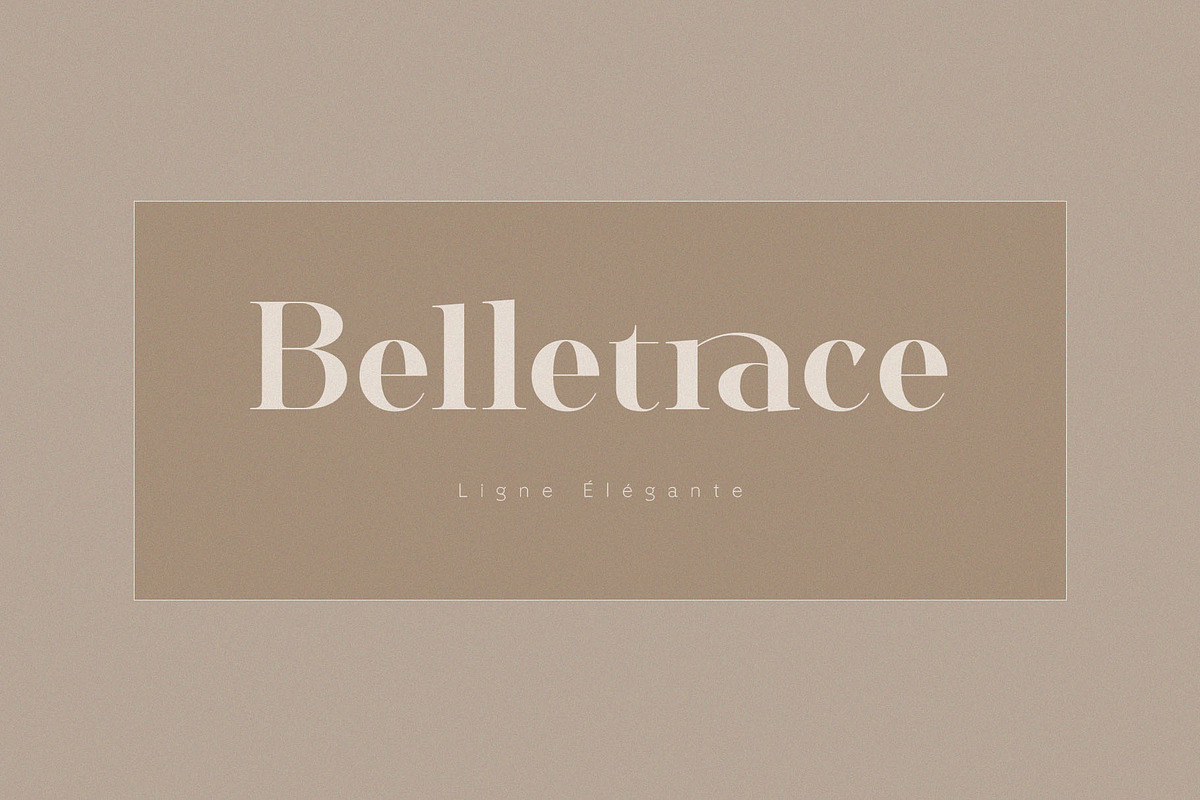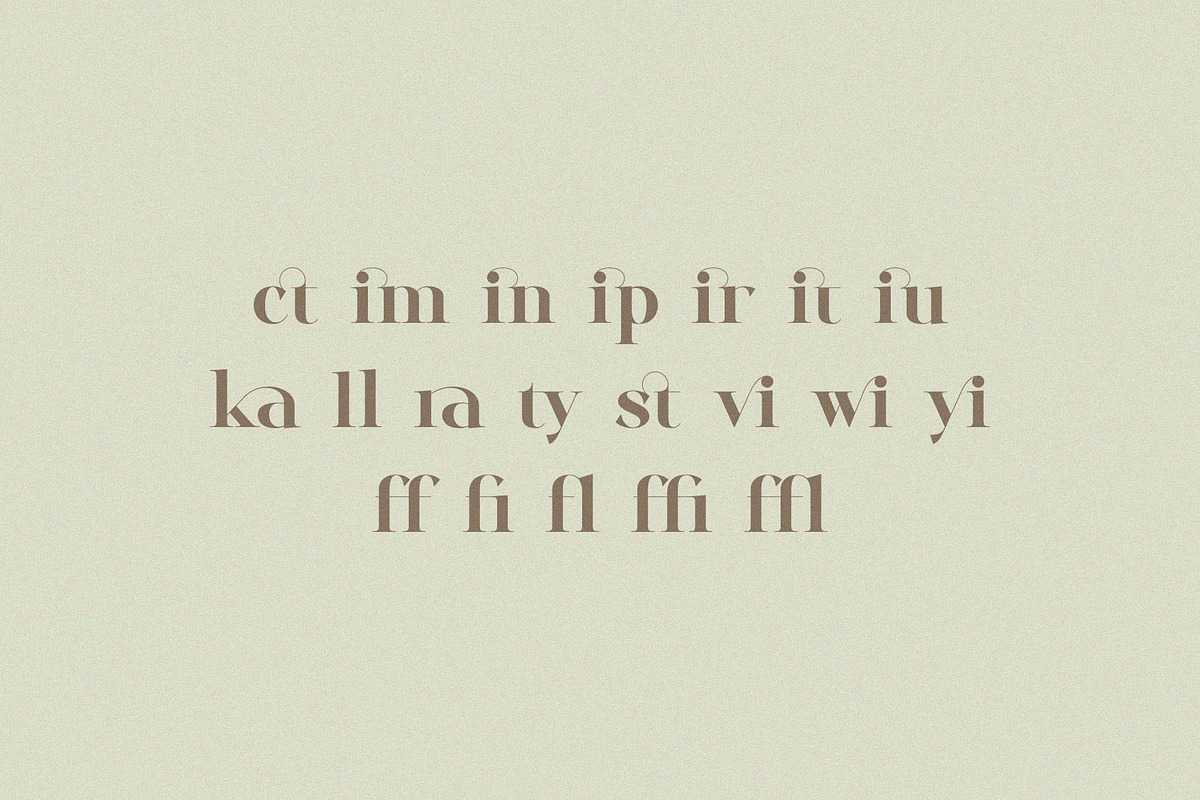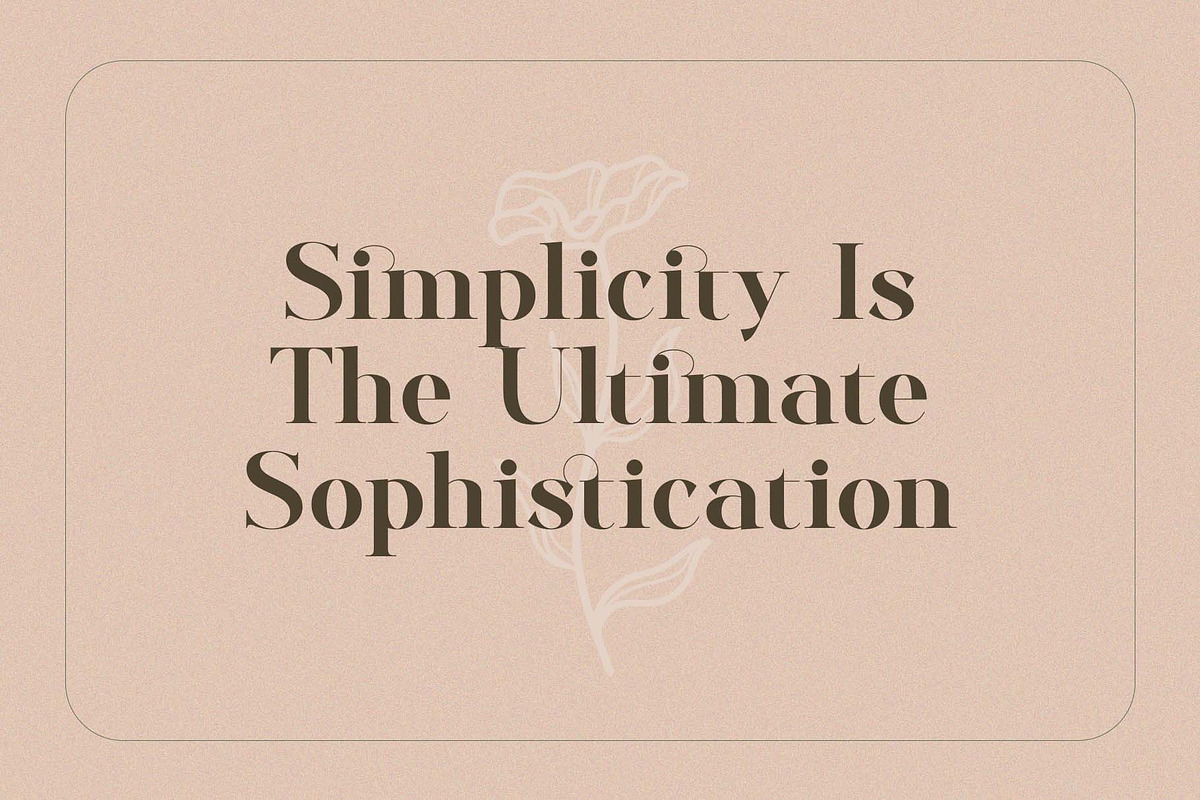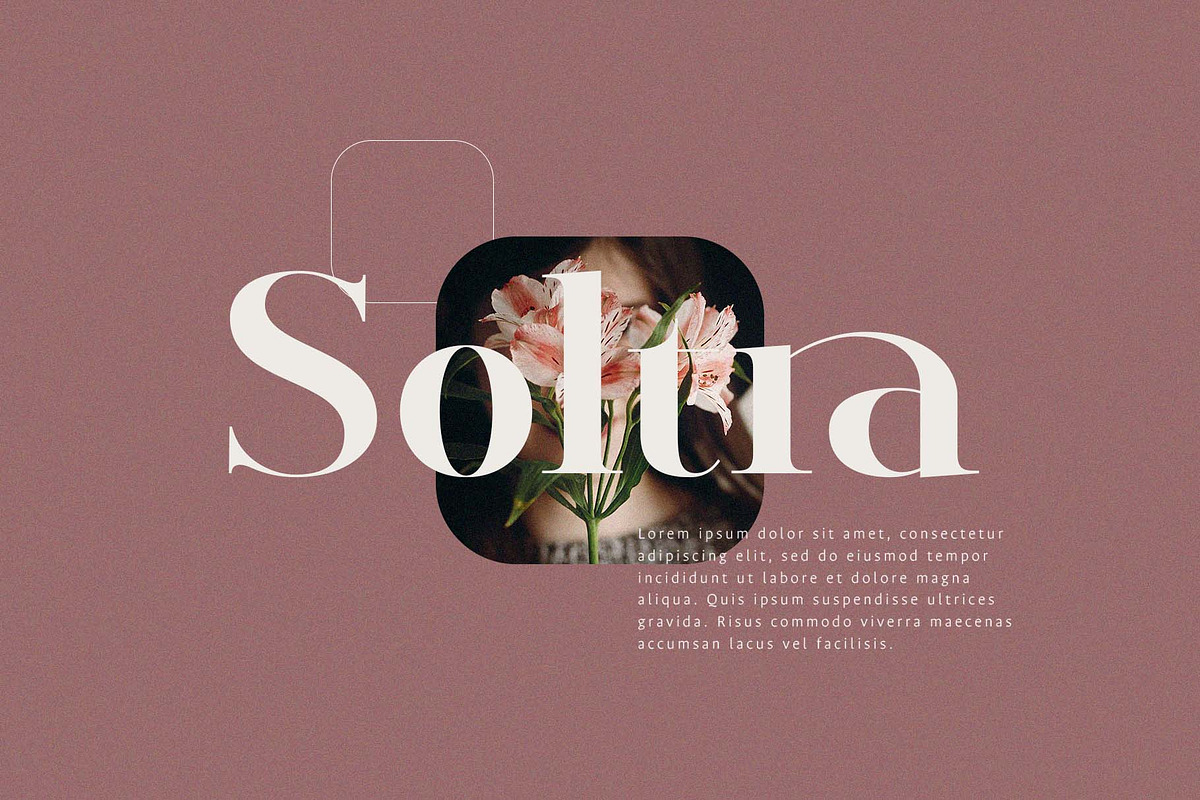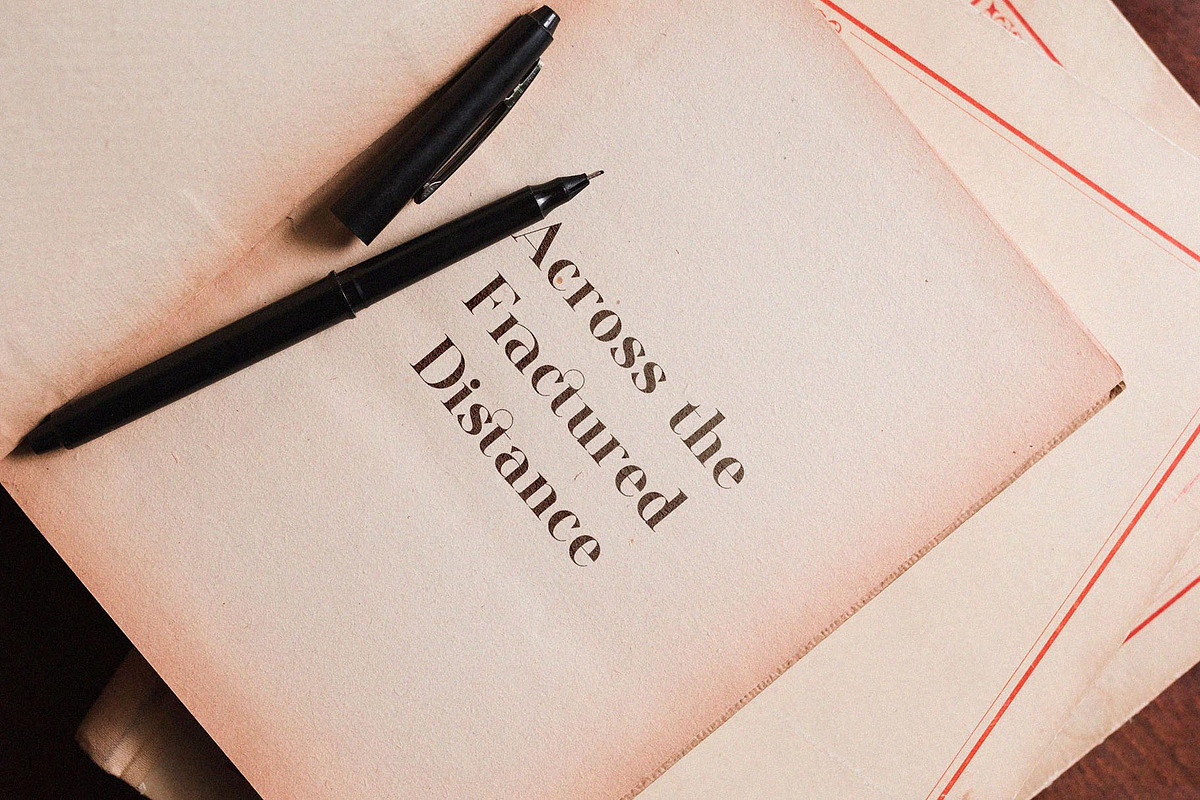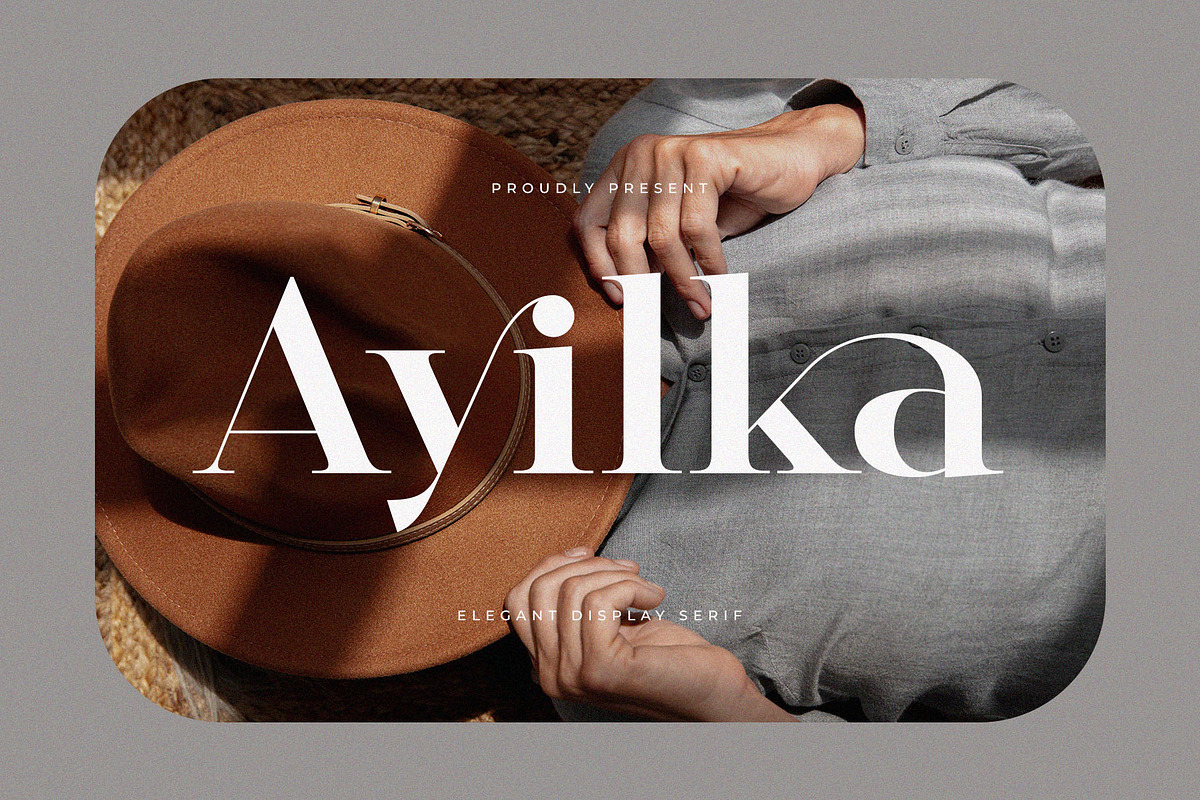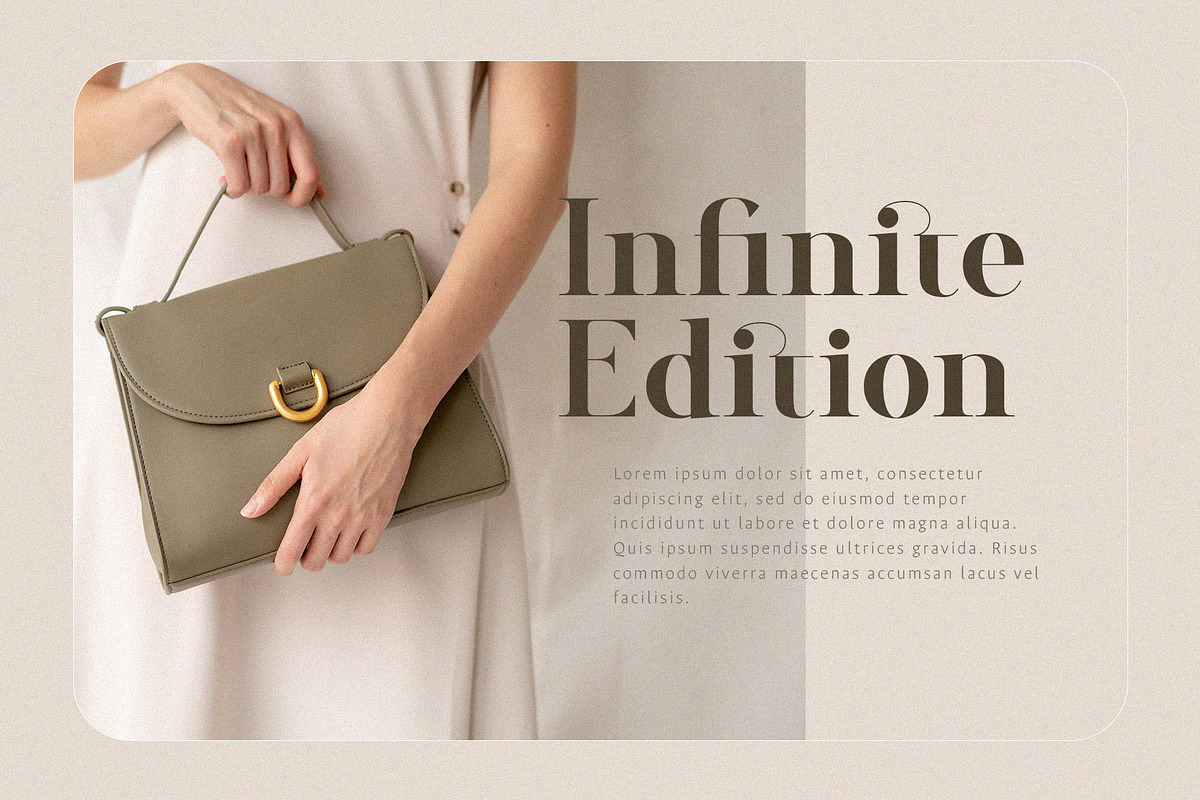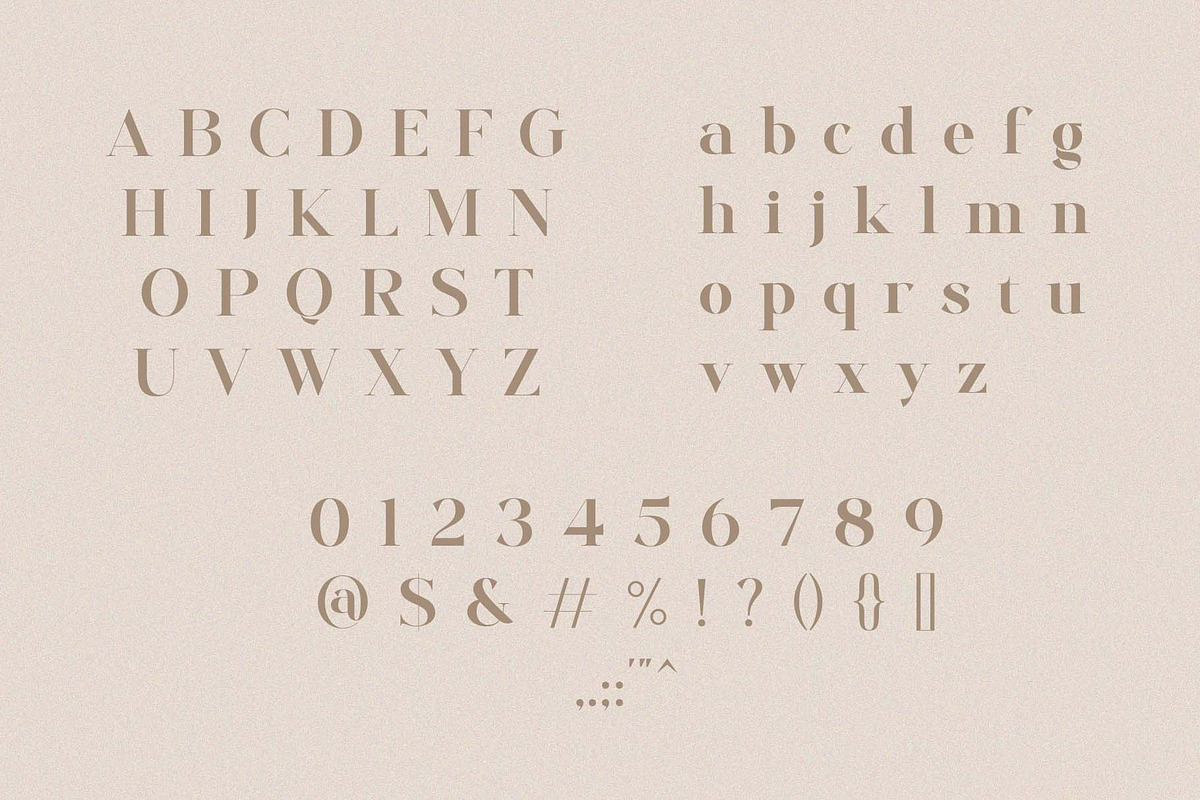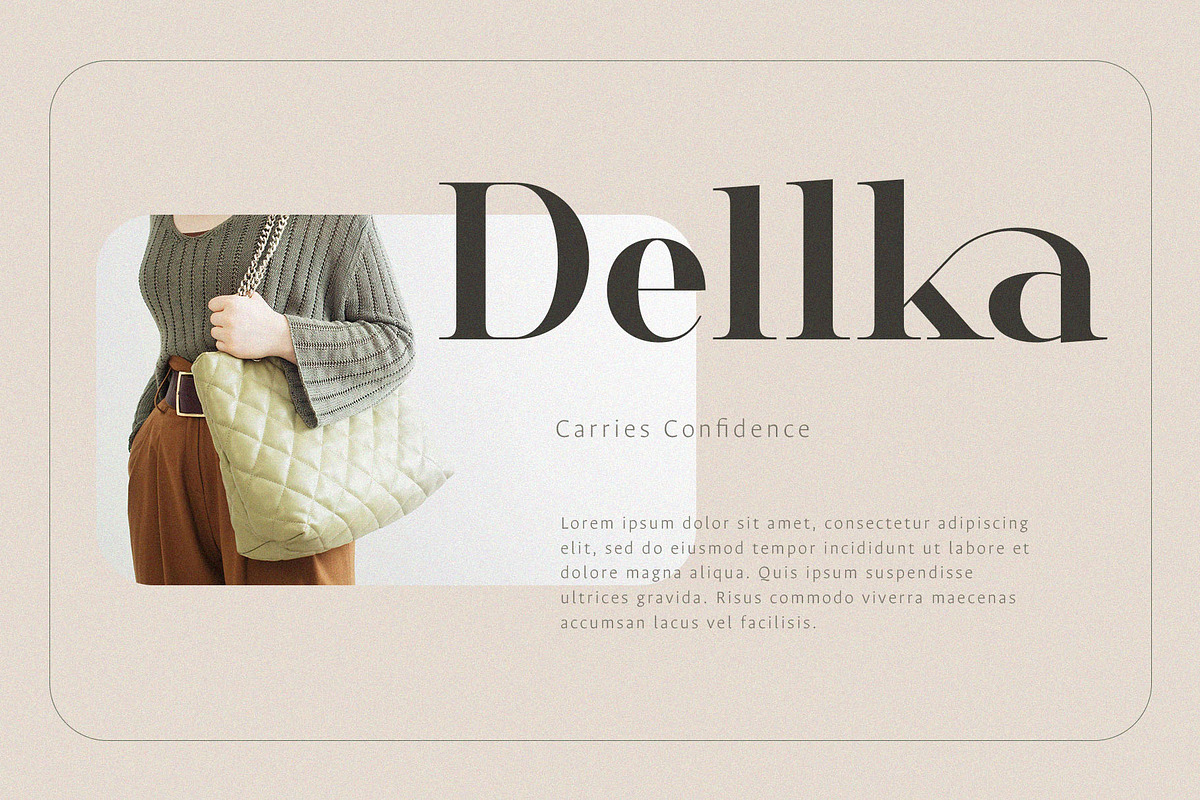
Ayilka - Elegant Display Serif
Introducing Ayilka Elegant Display Serif Font. Ayilka is a modern and classy typeface, best used as a display for headings, logos, branding, magazines, product packaging and invitations. Ayilka come with clean lines and smooth curves give any project an extra touch of class.